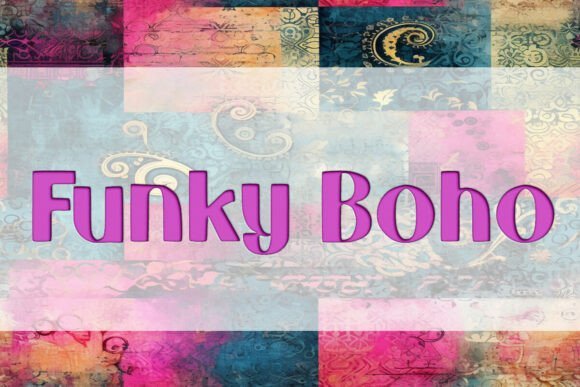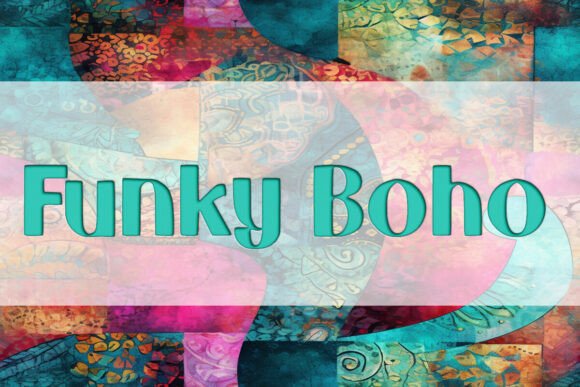
Get Ready to Unleash Your Creativity with the Funky Boho Font
Have you ever stared at a blank page, trying to conjure up the perfect design, only to be overwhelmed by the endless possibilities? We’ve all been there. But what if you could tap into a font that embodies the carefree spirit of bohemian design, effortlessly elevating your projects with its unique charm? Enter the Funky Boho Font, a stylish and versatile typeface that’s about to become your new best friend.
Perfect for designers who crave originality and warmth in their work, the Funky Boho Font is an absolute game-changer. Whether you’re crafting t-shirts, stationery, or social media graphics, this font adapts beautifully across both print and digital designs. Its boho-inspired elegance and playful character make it an ideal choice for adding a touch of individuality to your projects.
- Unique Characteristics: Funky Boho Font features a distinctive bohemian style with a mix of handwritten and typographic elements, adding a touch of whimsy and personality to designs.
Funky Boho Font Review
I recently had the chance to work with the Funky Boho Font, and I must say it’s a unique addition to any design project. Here are some of my thoughts on what makes it shine: ✨
- Playful vibes**: This font is perfect for projects that need a carefree, laid-back feel.
- Customization options**: The Funky Boho Font offers a range of variations, from bold to italic, giving designers plenty of room to experiment.
- Perfect for creative industries**: Whether it’s a music festival poster or a bohemian-inspired fashion brand, this font is sure to bring a touch of whimsy.
However, I did encounter some limitations: ⚠️
- Limited legibility**: In smaller sizes, the Funky Boho Font can become difficult to read, making it less suitable for body text.
- Not ideal for formal projects**: This font is best suited for creative or informal projects, as its playful nature may not be suitable for more formal or professional settings.
Overall, I think the Funky Boho Font is a great addition to any designer’s toolkit. While it may not be perfect for every project, its unique charm and customization options make it a valuable asset for those looking to add some personality to their designs.
For best results, use the Funky Boho Font for headings and titles, and pair it with a clean sans-serif font for body text.
For best results, use the Funky Boho Font for graphics, quotes, and other design elements.
For best results, use the Funky Boho Font for headings, titles, and emphasis.
The Funky Boho Font is perfect for:
1. Graphic design and branding.
2. Wedding invitations and stationery.
3. Social media graphics and posts.
4. Travel and lifestyle blogs.
5. Any design project that requires a fun, eclectic, and bohemian vibe.
Alternatives to Funky Boho Font
The Great Vibes Font is a beautiful, hand-drawn script font perfect for creating a whimsical and playful atmosphere. It’s ideal for headings, quotes, and titles in creative projects. Compared to Funky Boho Font, Great Vibes has a more refined and elegant feel, making it suitable for a wider range of designs.
Pacifico is a modern script font with a relaxed, beachy vibe. It’s perfect for designs that require a laid-back, casual feel. While Funky Boho Font has a more eclectic and bohemian look, Pacifico has a cleaner and more minimalist appearance, making it ideal for modern and trendy designs.
The recommended font size for optimal readability of the Funky Boho Font depends on the application and the intended use. However, as a general guideline, we recommend using font sizes between 12pt and 24pt for body text, and larger font sizes (36pt and above) for headings and titles.